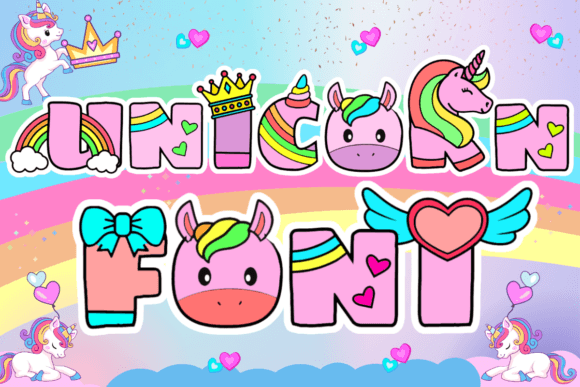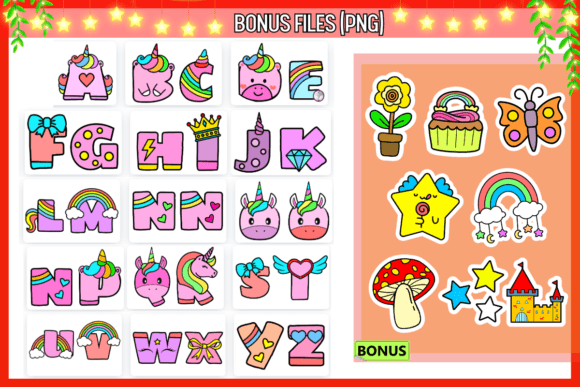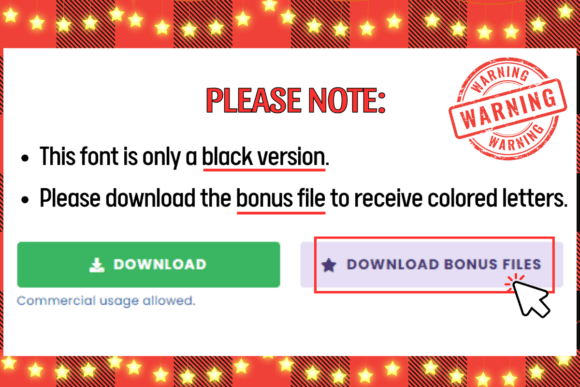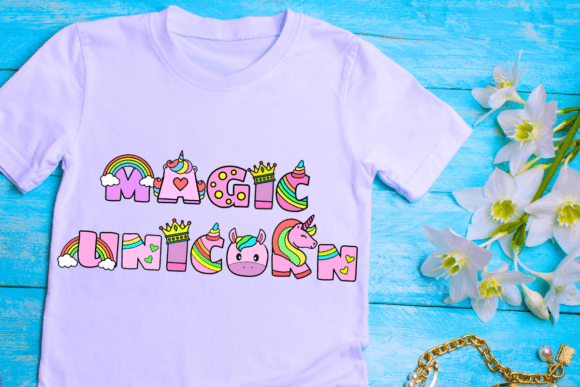
Unicorn Font
Unicorn font is a special type of writing where each letter looks like a unicorn! It’s like writing with magical creatures instead of regular letters, making it fun and whimsical for creative projects like posters or invitations.